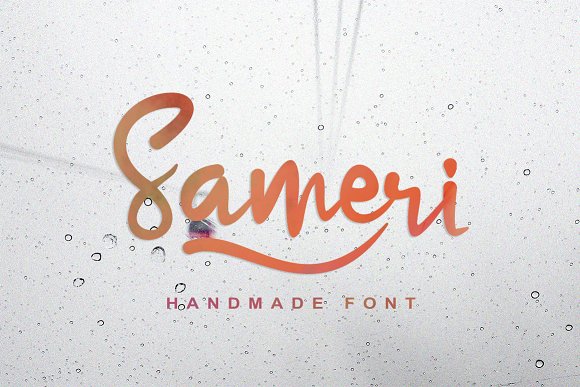
Sameri Brush Font
Sameri Brush is a smooth hand marker, modern style marker , which was created to meet the needs of your next design project.
Sameri Brush can used for various purposes. such as the title, logo, correspondence, signage, labels, newsletters, badges, t-shirt, etc.